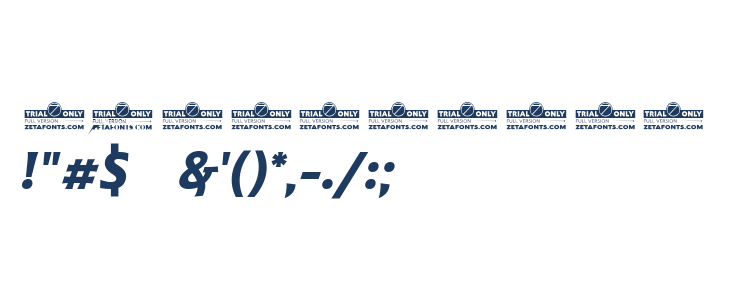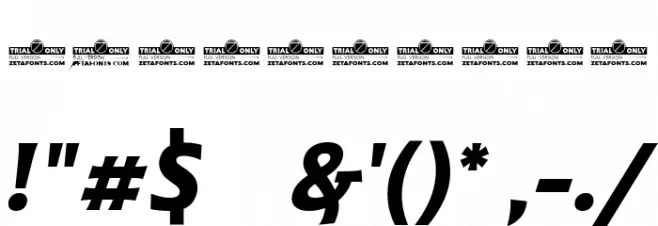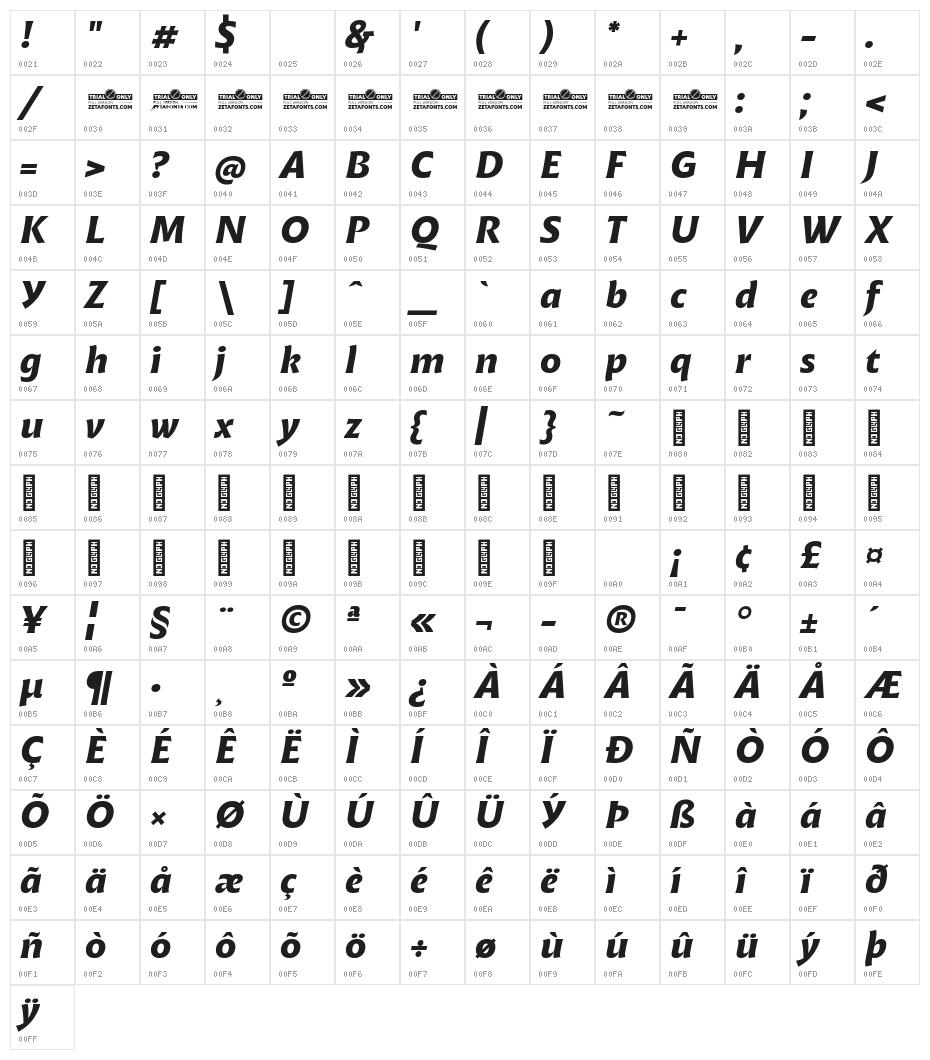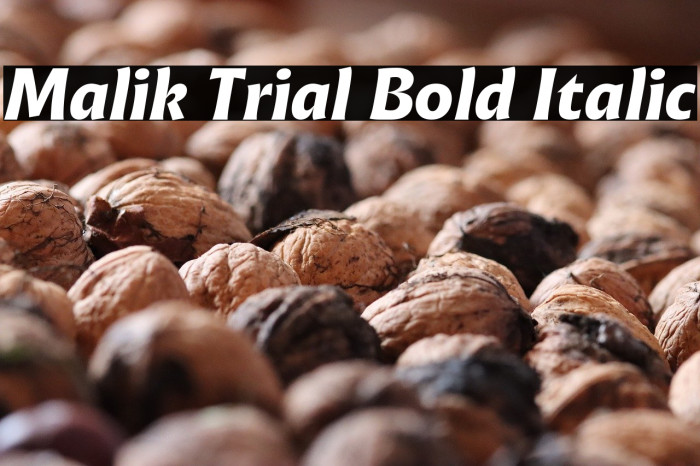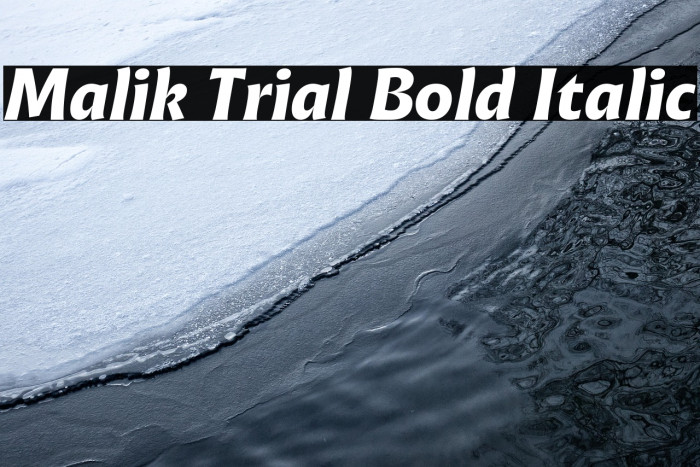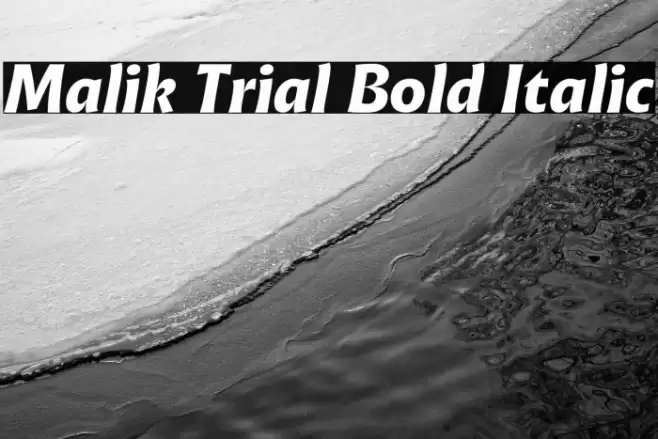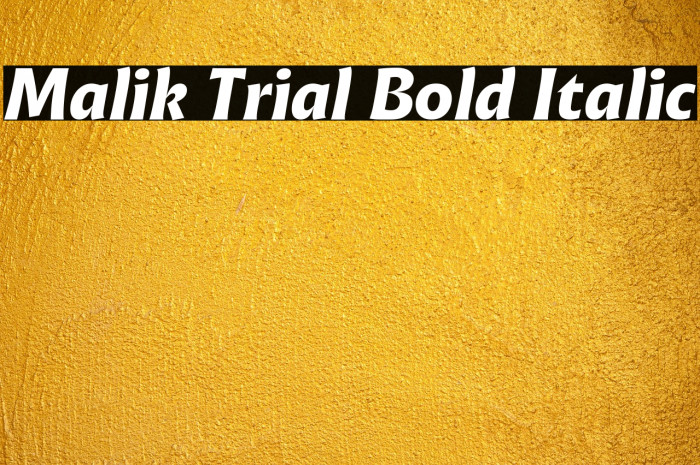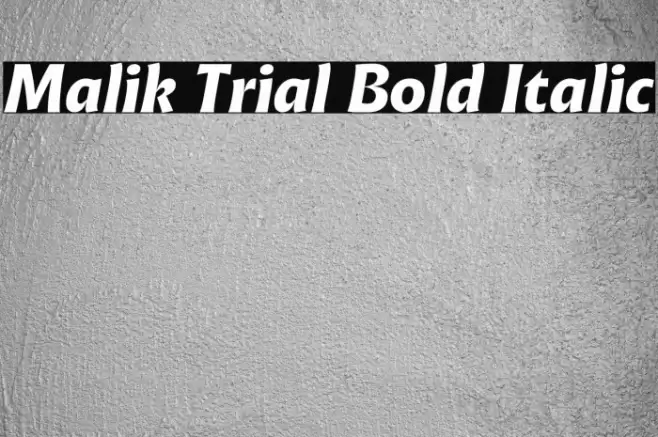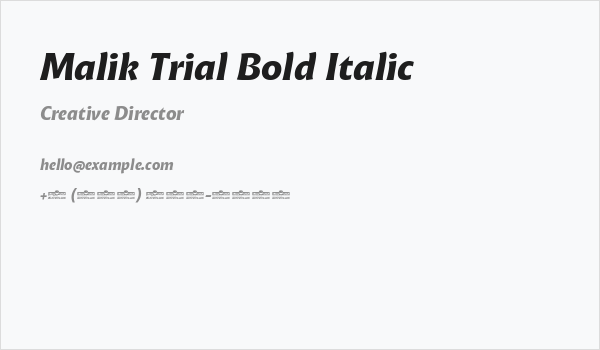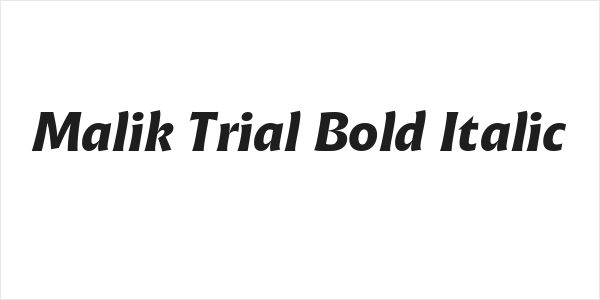
Malik Trial Bold Italic Font
Malik Trial Bold Italic Description
This font exhibits a bold and italicized style, characterized by its strong presence and dynamic slant. The uppercase letters are robust and assertive, while the lowercase letters maintain a consistent flow, enhancing readability. The numerals are clear and well-defined, complementing the overall bold aesthetic. Special characters are crafted with precision, ensuring versatility in various design contexts. The font's italic nature adds a sense of movement and elegance, making it suitable for impactful and stylish presentations.
| Proposed Projects | Ideal for branding, advertising, headlines, and editorial design where a bold statement is needed. |